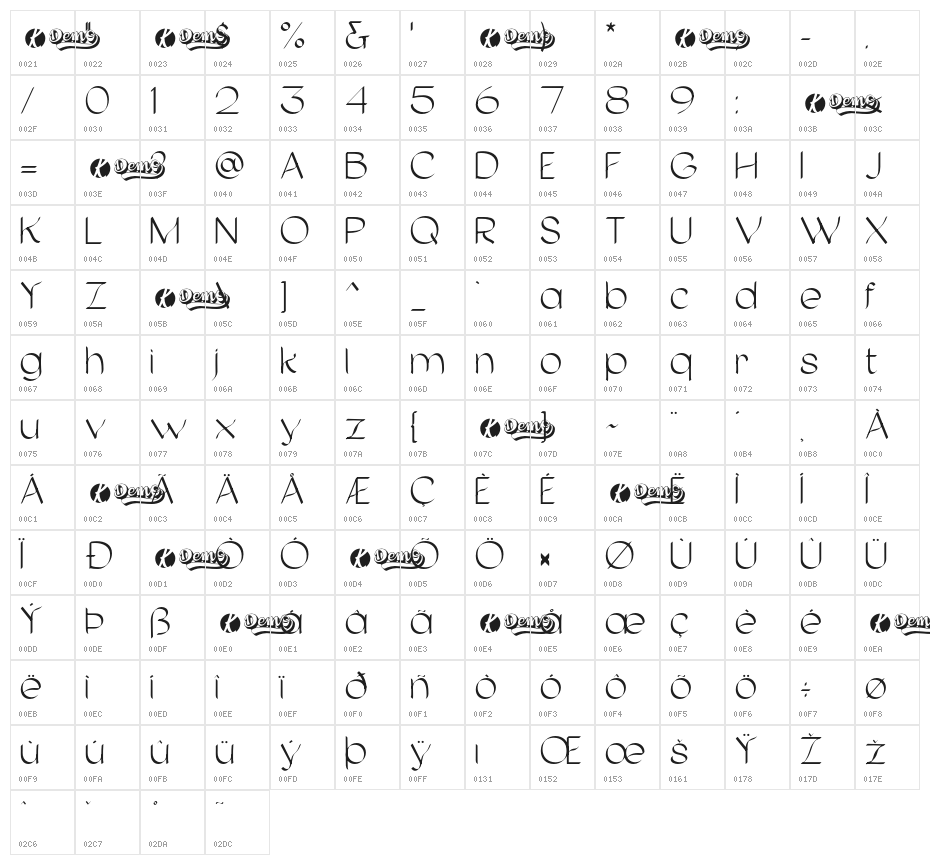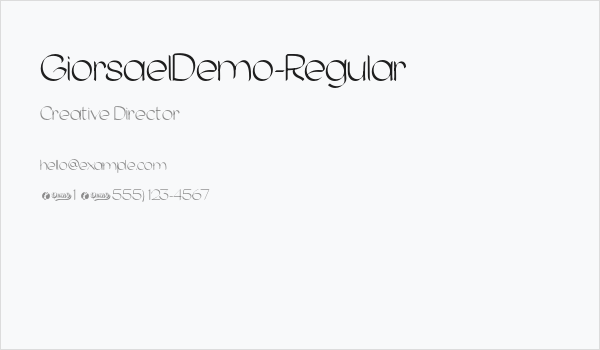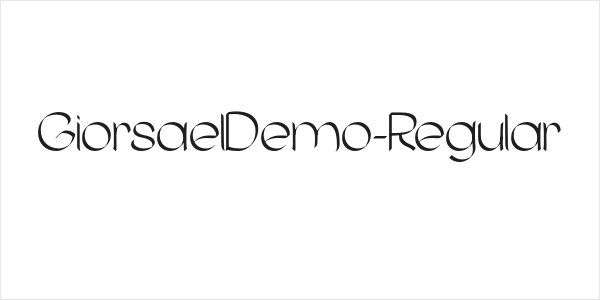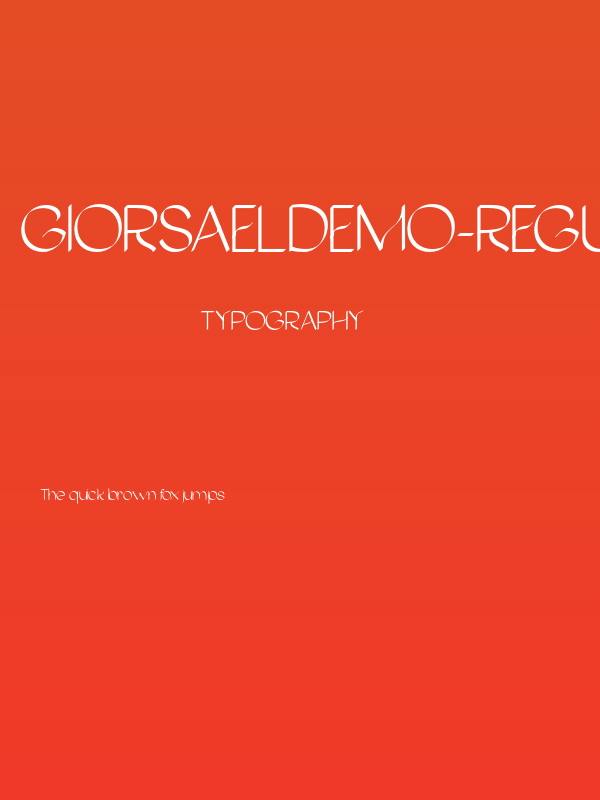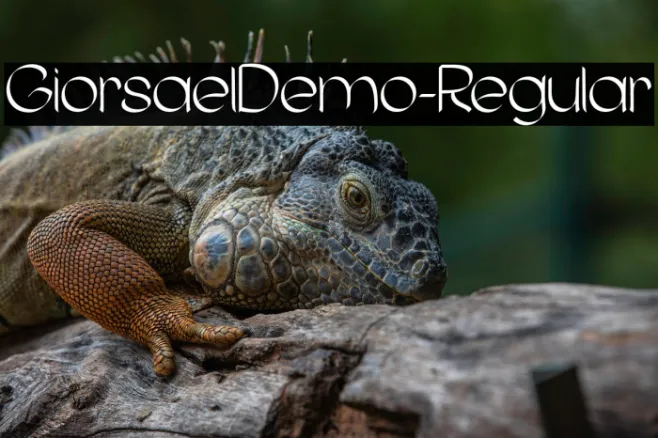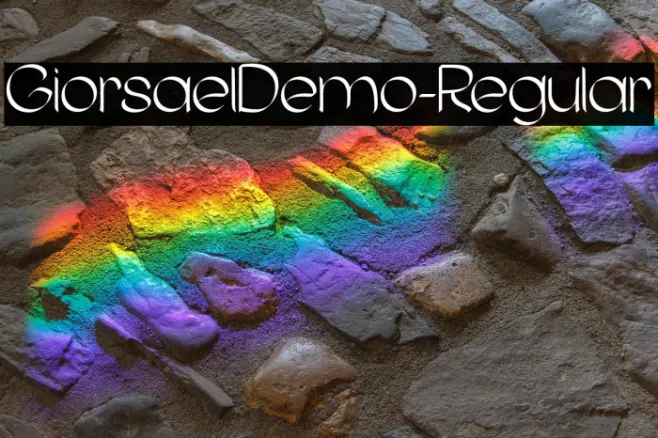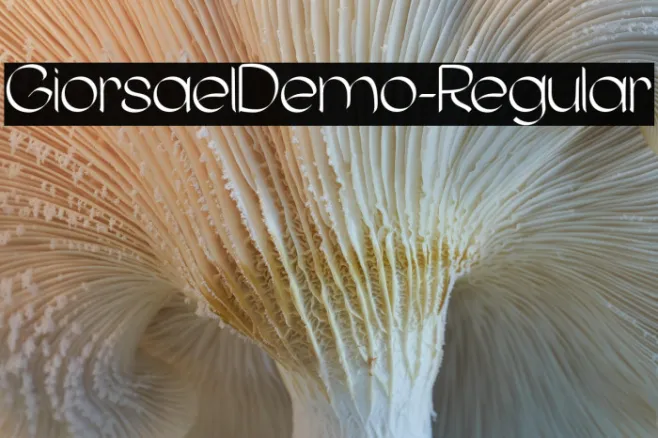
GiorsaelDemo-Regular Font
GiorsaelDemo-Regular Description
This font features a unique and artistic style, characterized by its elegant curves and sharp angles. The uppercase letters are distinct with a modern flair, while the lowercase letters maintain a cohesive flow. Numbers are bold and easily readable, making them suitable for various applications. The special characters add a decorative touch, enhancing the font's versatility. Its overall design is both sophisticated and contemporary, making it ideal for creative projects.
| Use Case | Headlines, Logos, Artistic projects |
| Proposed Projects | Ideal for branding, logos, headlines, and artistic projects that require a modern and sophisticated touch. |